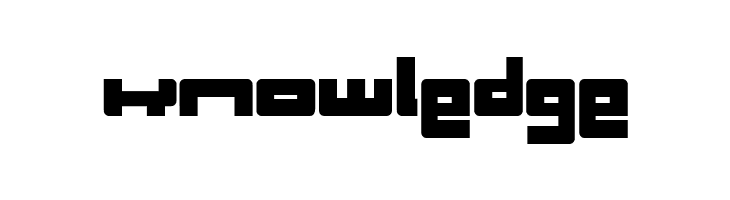
Captain Canaveral Condensed Font
- Font: Captain Canaveral Condensed
( Fonts by Ben Nathan )
A bold, geometric font with a futuristic and blocky design.